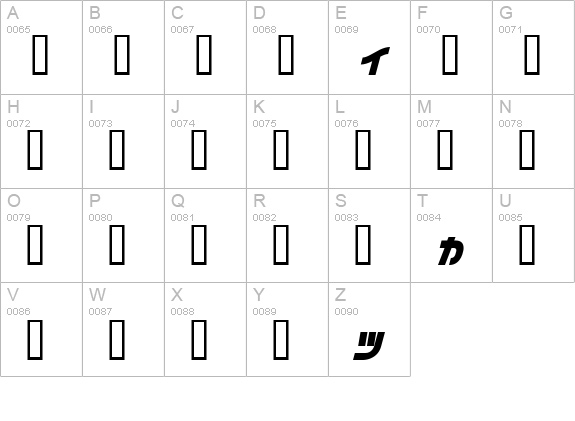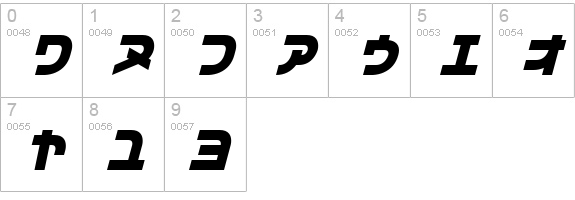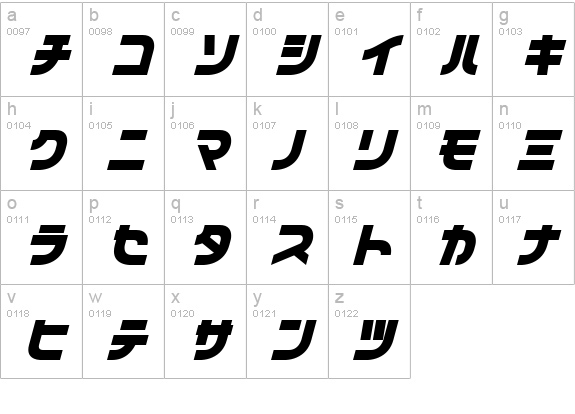
I2Vifam Font Details
Introducing I2Vifam, a stunningly elegant font that will add a touch of sophistication to any project. With its beautifully crafted letterforms and exquisite attention to detail, this font is perfect for those looking to elevate their designs to the next level. I2Vifam is a versatile font that can be used for a wide range of purposes, from branding and logos to headlines and body text. Its clean and modern aesthetic will ensure that your message is conveyed with utmost clarity and style. But what sets I2Vifam apart from other fonts is that it is not only visually appealing, but also incredibly accessible. This font is available for free download at FontsMarket.com, making it easily accessible to designers and enthusiasts alike. Now, you can bring a touch of elegance to your projects without breaking the bank. Whether you're a professional designer or someone looking to add a touch of flair to your personal projects, I2Vifam is the perfect choice. With its timeless beauty and accessibility, this font is sure to become a favorite in your design arsenal. So why wait? Download I2Vifam today and let your creativity soar.